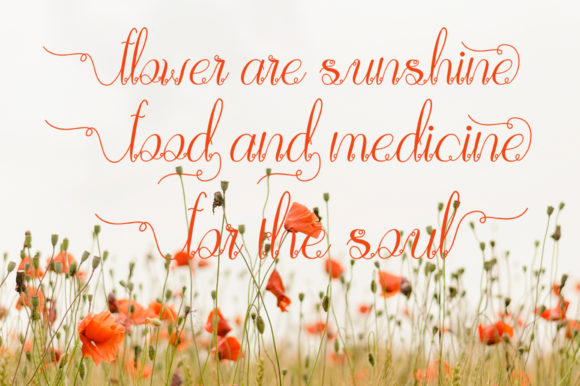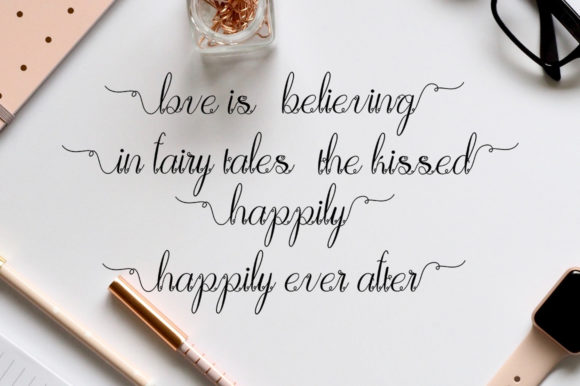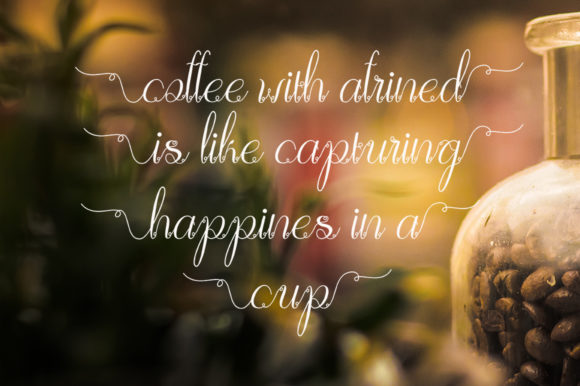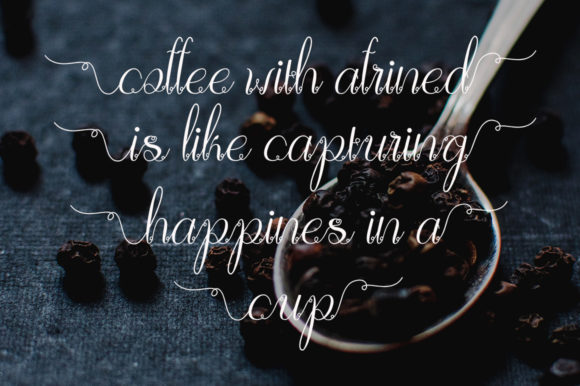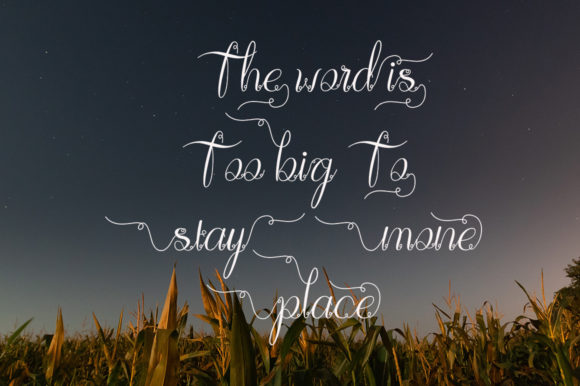
Introducing Halayna Font: Elevate Your Designs with Modern Elegance
In the world of design, typography plays a crucial role in conveying messages, expressing creativity, and capturing the audience’s attention. A perfect font can instantly elevate your design, making it professional and visually appealing. Meet Halayna Font, a modern typeface that boasts a tasty flow, designed to make your designs instantly professional and jaw-dropping!
The Power of Typography: Why Fonts Matter
Typography is an essential element in design, influencing how your message is perceived by your audience. The right font can add personality, tone, and style to your design, making it more engaging and memorable. On the other hand, a poorly chosen font can detract from your message, making it hard to read and unappealing. With Halayna Font, you can say goodbye to mediocre designs and hello to stunning, professional-grade creations.
What Makes Halayna Font Special?
Halayna Font is a modern typeface that stands out from the crowd with its unique characteristics:
- Modern Elegance: Halayna Font boasts a sleek, contemporary design that’s perfect for creating modern designs that appeal to today’s audience.
- Tasty Flow: The font’s flow is carefully crafted to ensure that your text is easy to read and visually appealing, making it perfect for long-form content or short, snappy headlines.
- Professional Grade: With Halayna Font, you can instantly elevate your designs to a professional level, making it perfect for creating ads, sales materials, logos, branding, posters, and social media text overlays.
Unlock Your Creative Potential with Halayna Font
Whether you’re a designer, craftsperson, or entrepreneur, Halayna Font is the perfect tool to unlock your creative potential. With this versatile font, you can:
- Create Stunning Ads and Sales Materials: Craft eye-catching ads and sales materials that grab attention and drive results.
- Design Memorable Logos and Branding: Establish a strong brand identity with a custom logo and branding that reflects your unique personality and style.
- Elevate Your Social Media Presence: Create engaging social media content with professional-grade text overlays that make your posts stand out.
Be a Perfect Professional in a Minute
With Halayna Font, you don’t need to spend hours perfecting your design skills or agonizing over font choices. This modern typeface is designed to help you create professional-grade designs in no time. Simply:
Get Ready to Revolutionize Your Designs
Halayna Font is more than just a font – it’s a game-changer for designers and crafters. Say goodbye to mediocre designs and hello to stunning, professional-grade creations. With Halayna Font, you can:
In conclusion, Halayna Font is the perfect solution for designers and crafters looking to elevate their designs with modern elegance. With its tasty flow, professional-grade quality, and versatility, this font is sure to revolutionize your design workflow. So why wait? Download Halayna Font today and start creating stunning designs that leave a lasting impression!